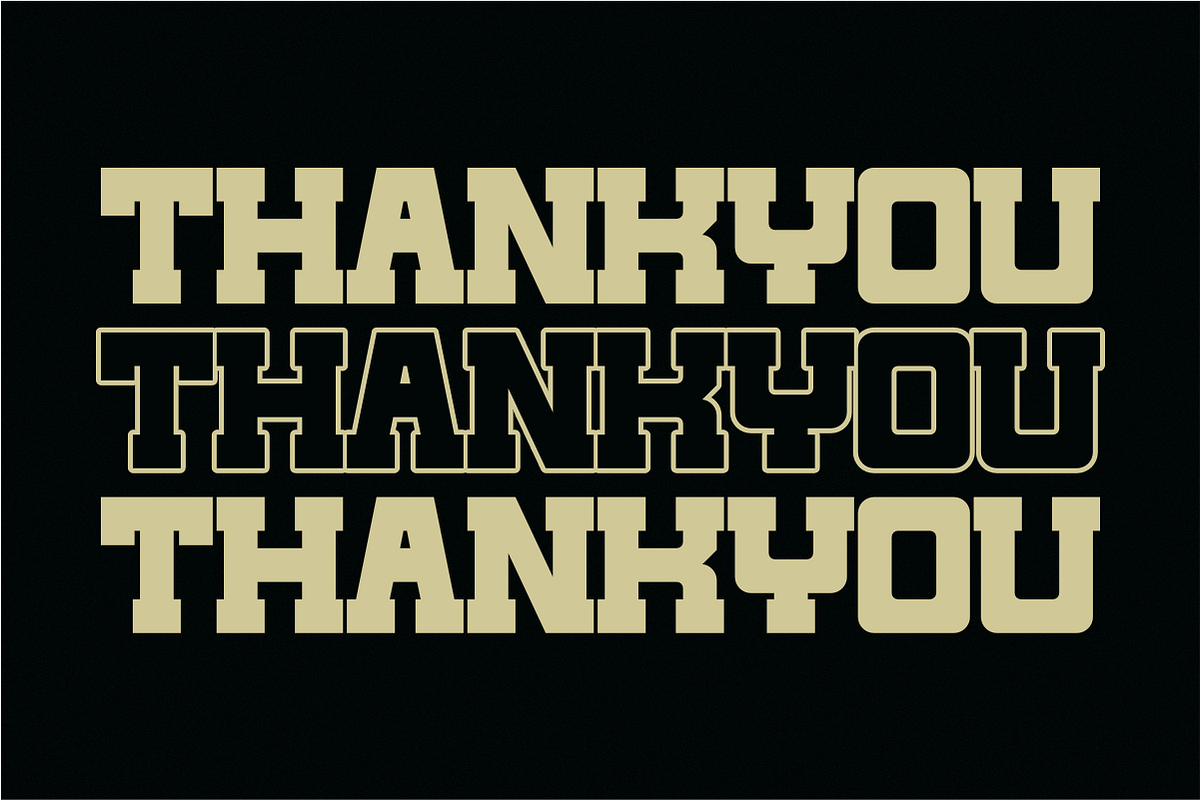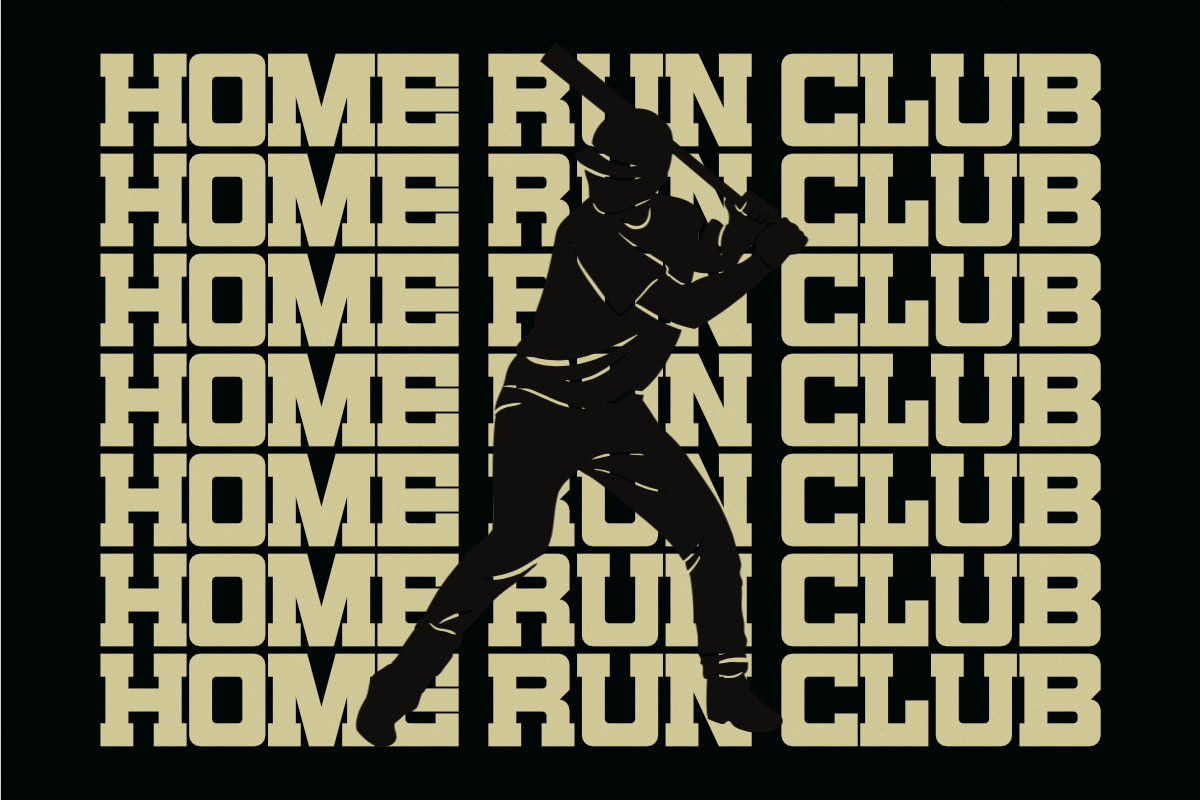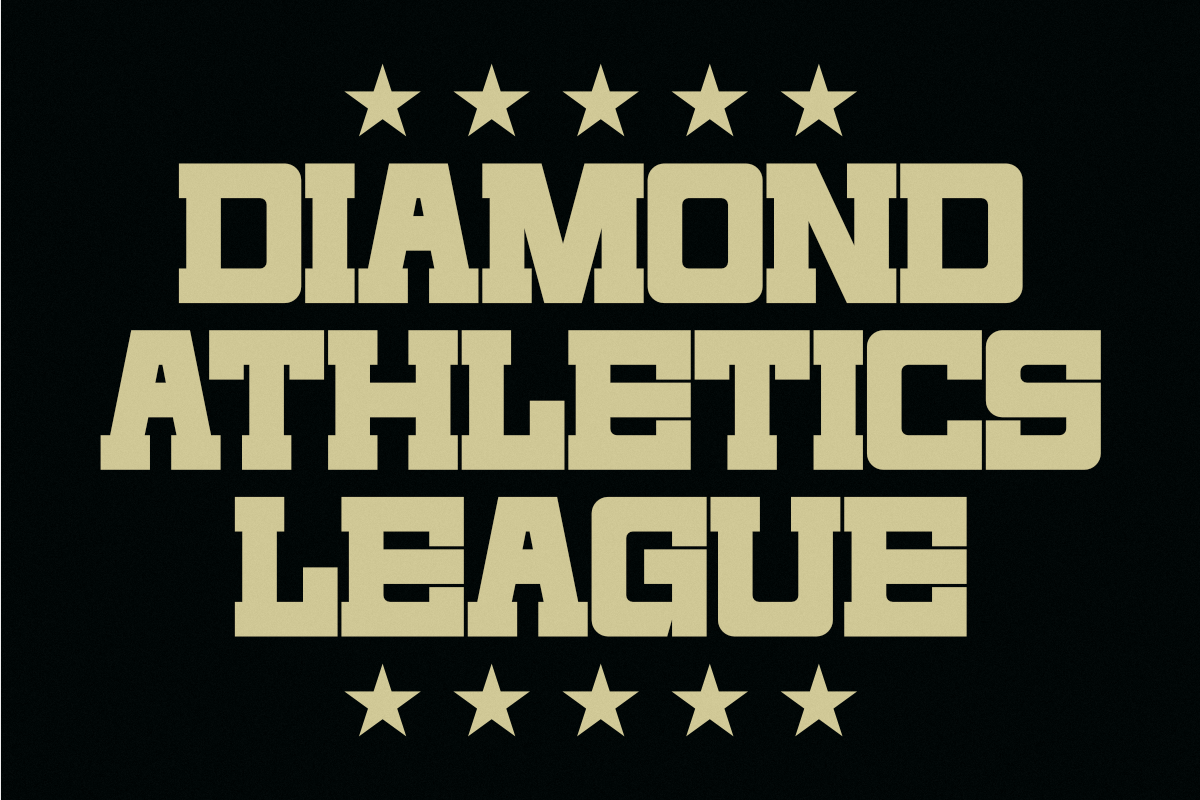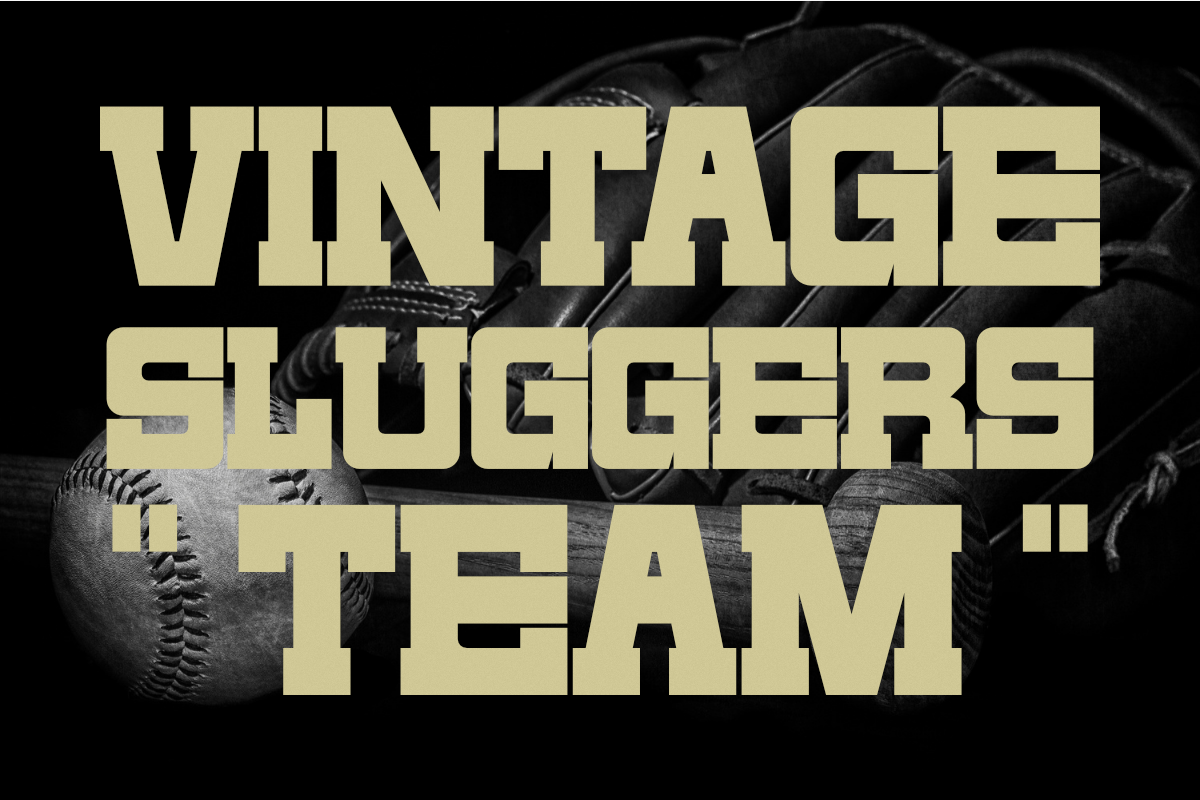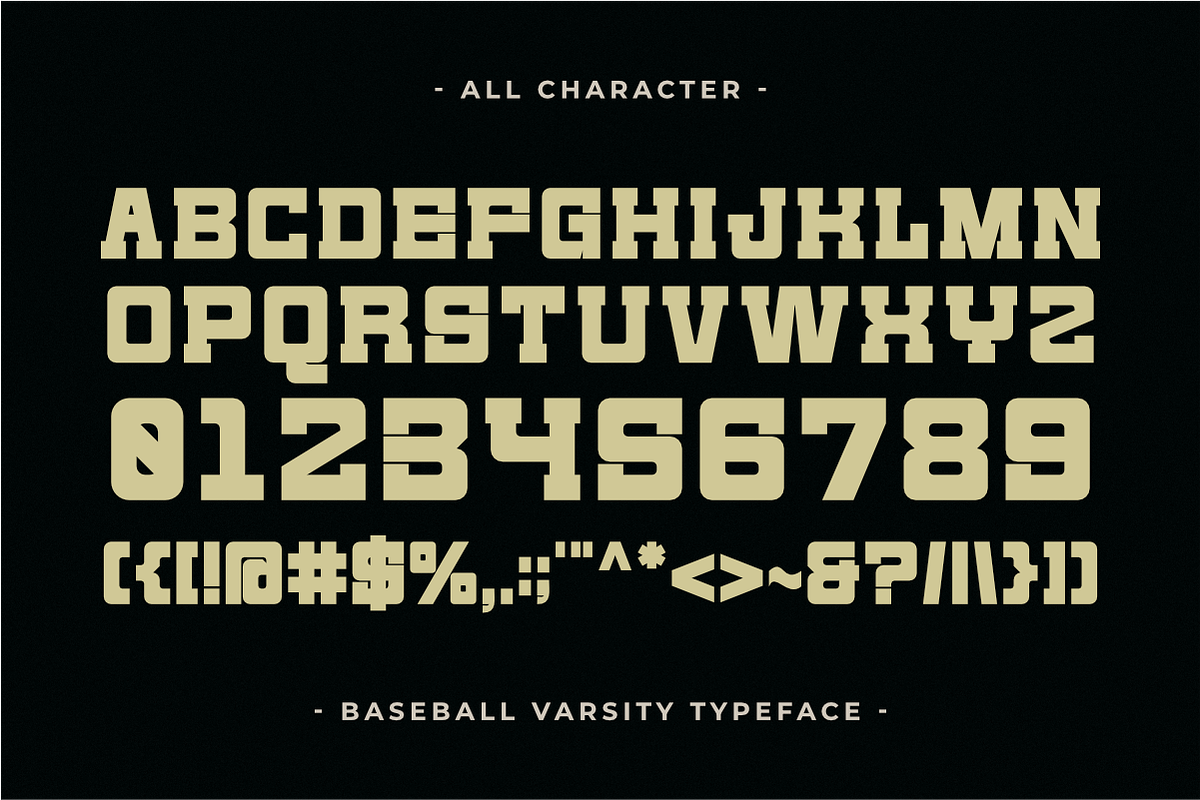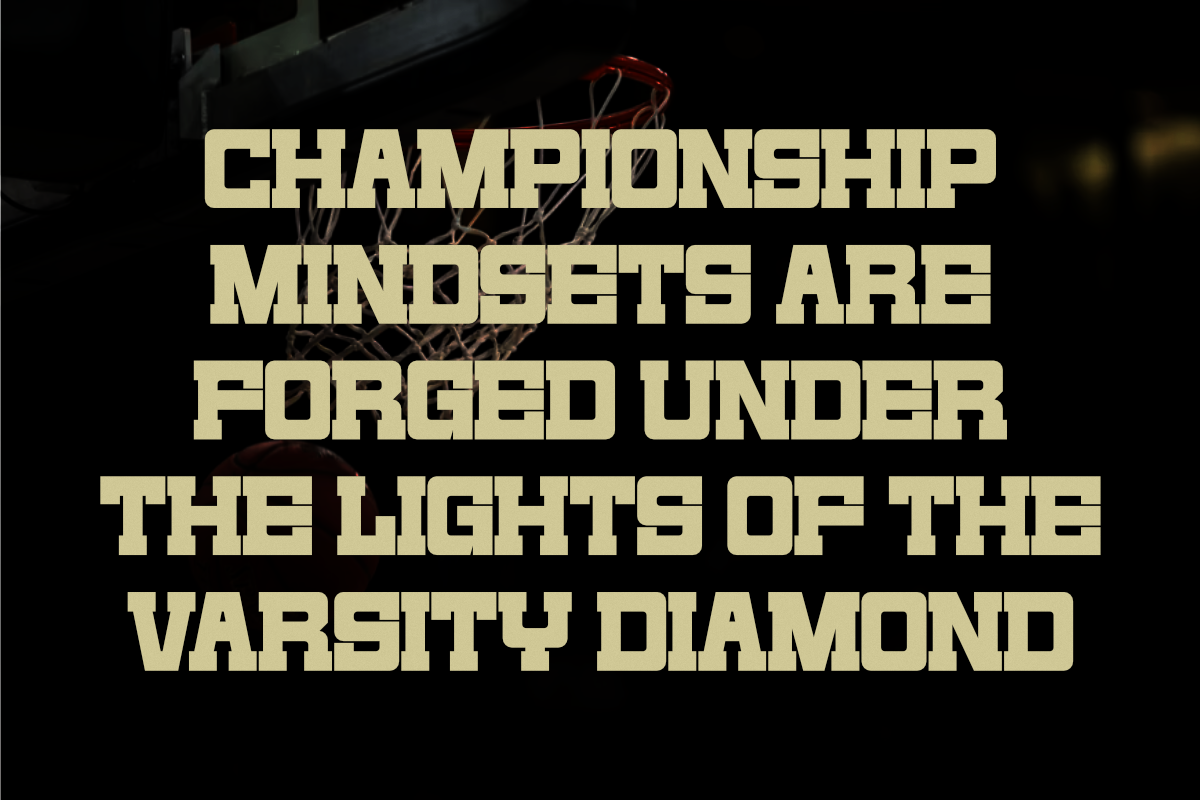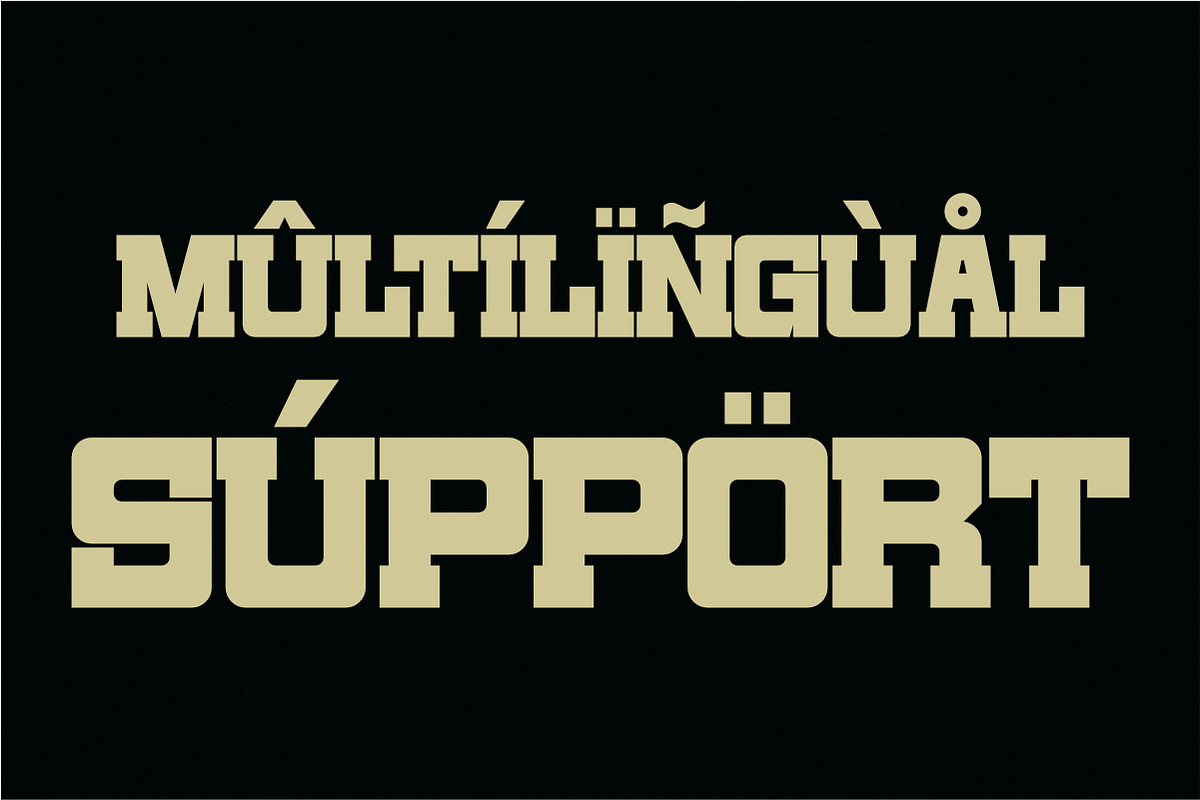
Baseball Varsity - Condensed Slab
Baseball Varsity is a premium and high-impact Condensed Slab Serif font designed to capture the authentic spirit of classic American sports heritage. Engineered with robust, geometric block serifs and a tall, space-saving condensed typeface silhouette, this all-caps font is the ultimate choice for baseball branding, softball team logos, vintage university apparel, and athletic jerseys. Its commanding visual weight and sharp lines deliver an authoritative presence, making it perfect for custom merchandise, tournament posters, stadium signage, and high-visibility digital headlines.